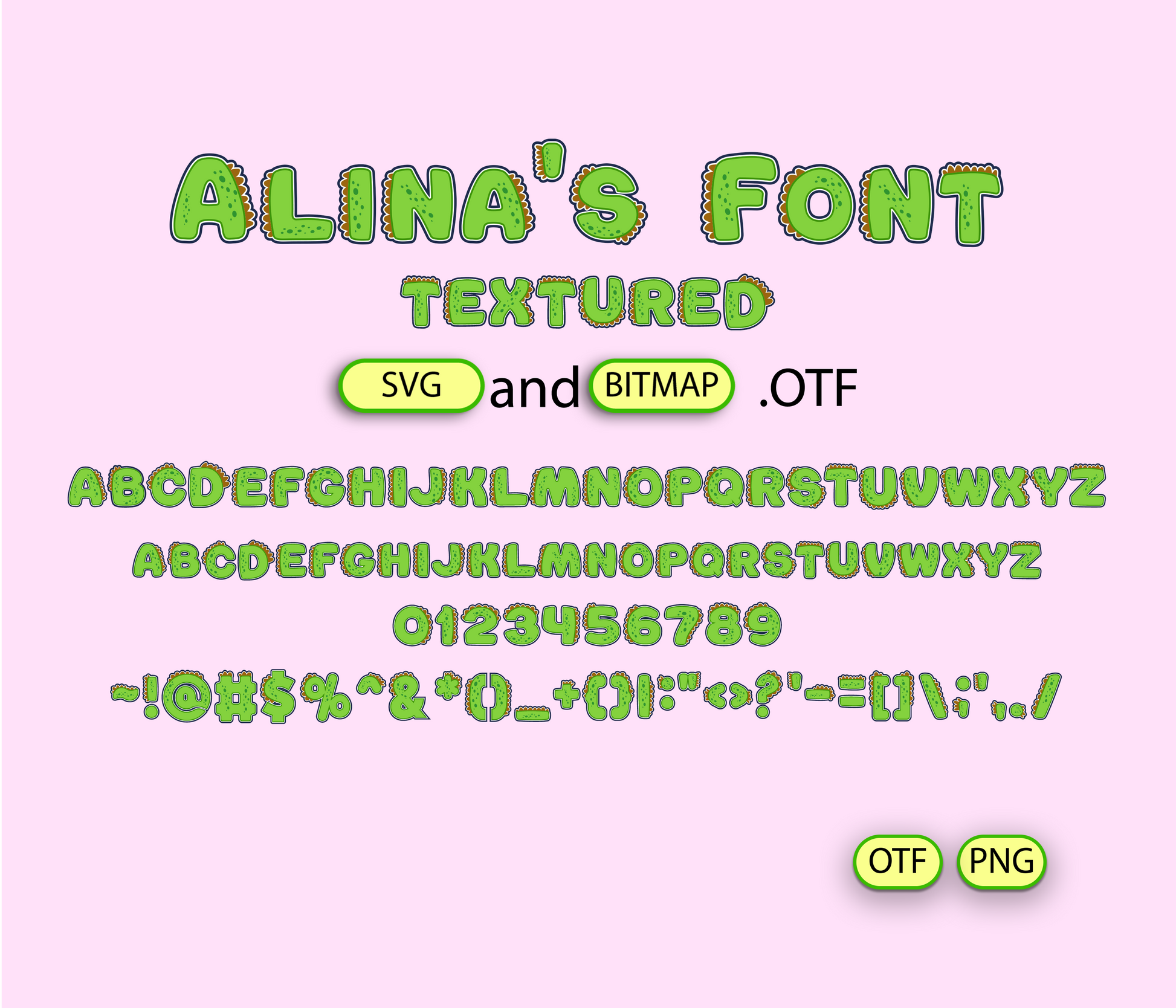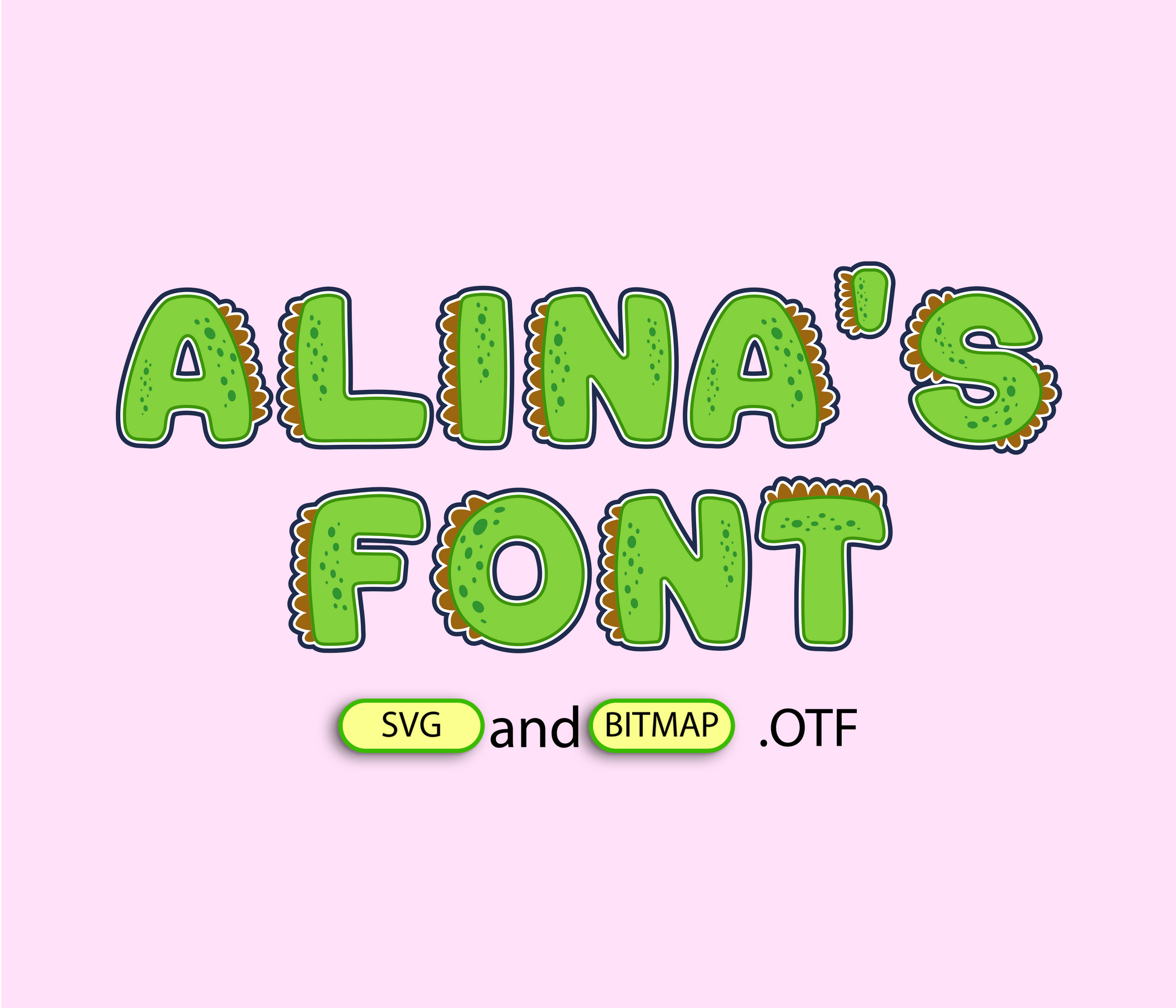
Dinosaur Green Pattern Font
The Prehistoric Majesty of Dinosaur
Step back in time to the age of the dinosaurs with our dinosaur font, a tribute to the magnificent creatures that once roamed the Earth. This font is inspired by the colossal size, diverse forms, and fascinating textures of these ancient beings. Each character in the Dinosaur font is designed to capture the essence of the prehistoric world, making it perfect for projects that aim to evoke the awe and wonder associated with these extinct giants.
What Font is Dinosaur Font?
Envision a typeface that encapsulates the ruggedness and raw power of the dinosaur era. Our Dinosaur font is created to reflect the characteristics of various dinosaur species, with a focus on bold, robust forms and a primal touch. It includes an extensive character set, featuring alphabets, numbers, and special symbols, offering a comprehensive toolkit for a wide range of design projects, from educational content to themed merchandise.
What Can You Do With Dinosaur Font?
The Dinosaur font is versatile and ideal for various creative and educational applications:
- Educational Materials: Perfect for creating engaging teaching aids, books, and resources about dinosaurs and paleontology.
- Themed Event Invitations: Create exciting invitations for dinosaur-themed parties, exhibitions, or museum events.
- Merchandise Design: Ideal for designing t-shirts, posters, and toys that appeal to dinosaur enthusiasts of all ages.
- Digital Content and Social Media: Use the font to add a prehistoric touch to websites, blogs, and social media posts about dinosaurs or natural history.
- Museum and Exhibition Signage: Enhance informational displays and signage in museums or educational centers.
- Greeting Cards and Stationery: Design personalized stationery or greeting cards with a dinosaur theme.
- Interior Decor: Create wall art, decals, or signage for children's rooms, classrooms, or themed spaces.
- Promotional Materials: Use in marketing and advertising materials for events, documentaries, or products related to dinosaurs.
- Book and Magazine Design: Apply it to publications focusing on science, history, or children's literature.
- Creative Art Projects: Ideal for crafting, scrapbooking, and artistic projects inspired by the prehistoric era.
- Textured and Non-Textured Variants: Each font is available in both a rugged, prehistoric style and a clean, non-textured version for diverse design needs.
- Comprehensive Character Set: Offers a wide range of characters for complete design versatility.
The Dinosaur font is more than just a typeface; it's a journey into the world of these awe-inspiring creatures.